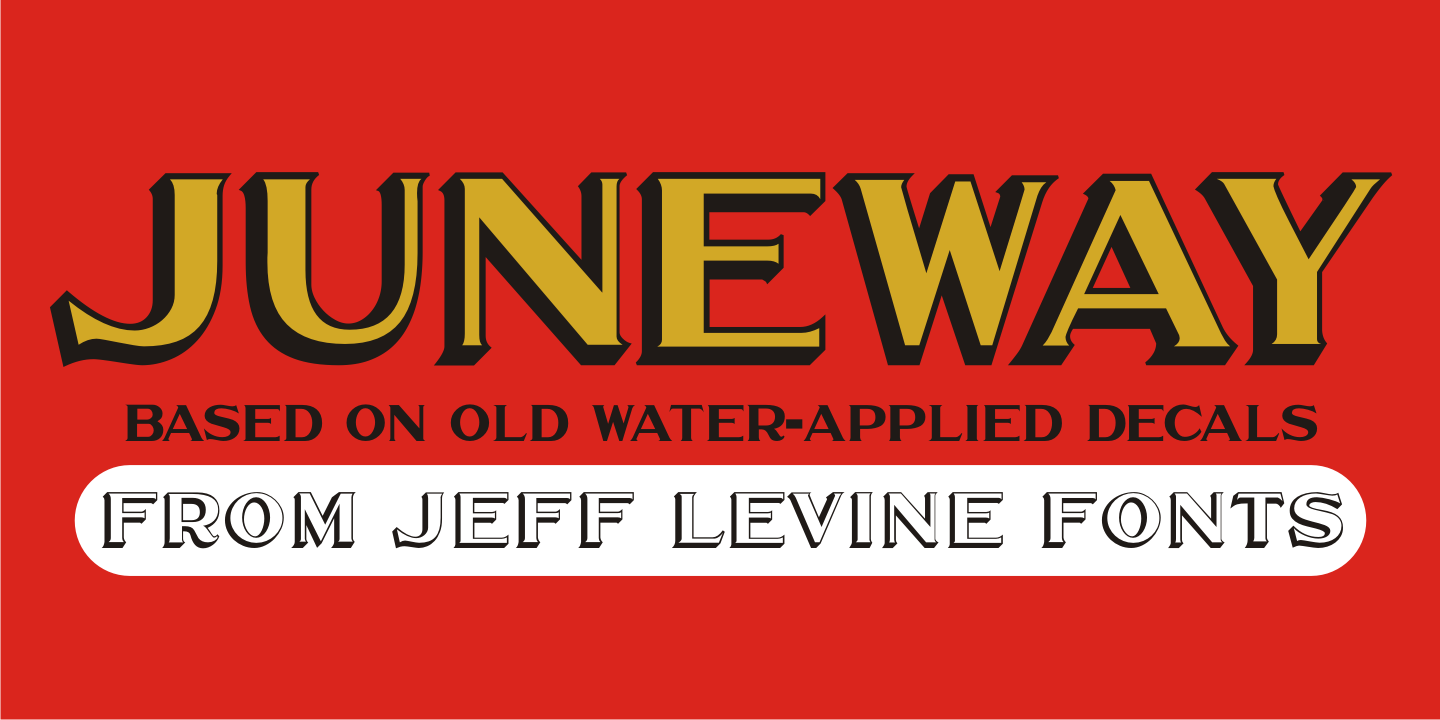
Discover the Juneway JNL Font Free Download, a retro serif typeface designed by Jeff Levine and published by Jeff Levine Fonts. This font is available for free download for testing purposes, but you must purchase it for commercial use. Inspired by water-applied decals from the Duro Decal Company of Chicago, its 1950s-style design offers a bold, nostalgic charm.
The Juneway JNL Font is perfect for vintage posters, signage, logos, packaging, and retro-themed branding, where its heavy, shadowed letterforms create a striking, old-fashioned look. Its thick-and-thin serif style excels in both print and digital displays, evoking mid-century aesthetics.
What makes the Juneway JNL Font Free Download exciting is its authentic retro vibe, combining 3D, cast-shadow effects with a hand-drawn feel, reminiscent of classic sign painting. Its bold, decorative design captures attention, making it ideal for impactful headlines and logos.
The Juneway JNL Font family includes a single style, focusing on its signature all-caps, open-shade serif design, offering a cohesive look for vintage-inspired projects. Related fonts like Alphacal JNL and Alphacal Black JNL share its lettering style for added versatility.